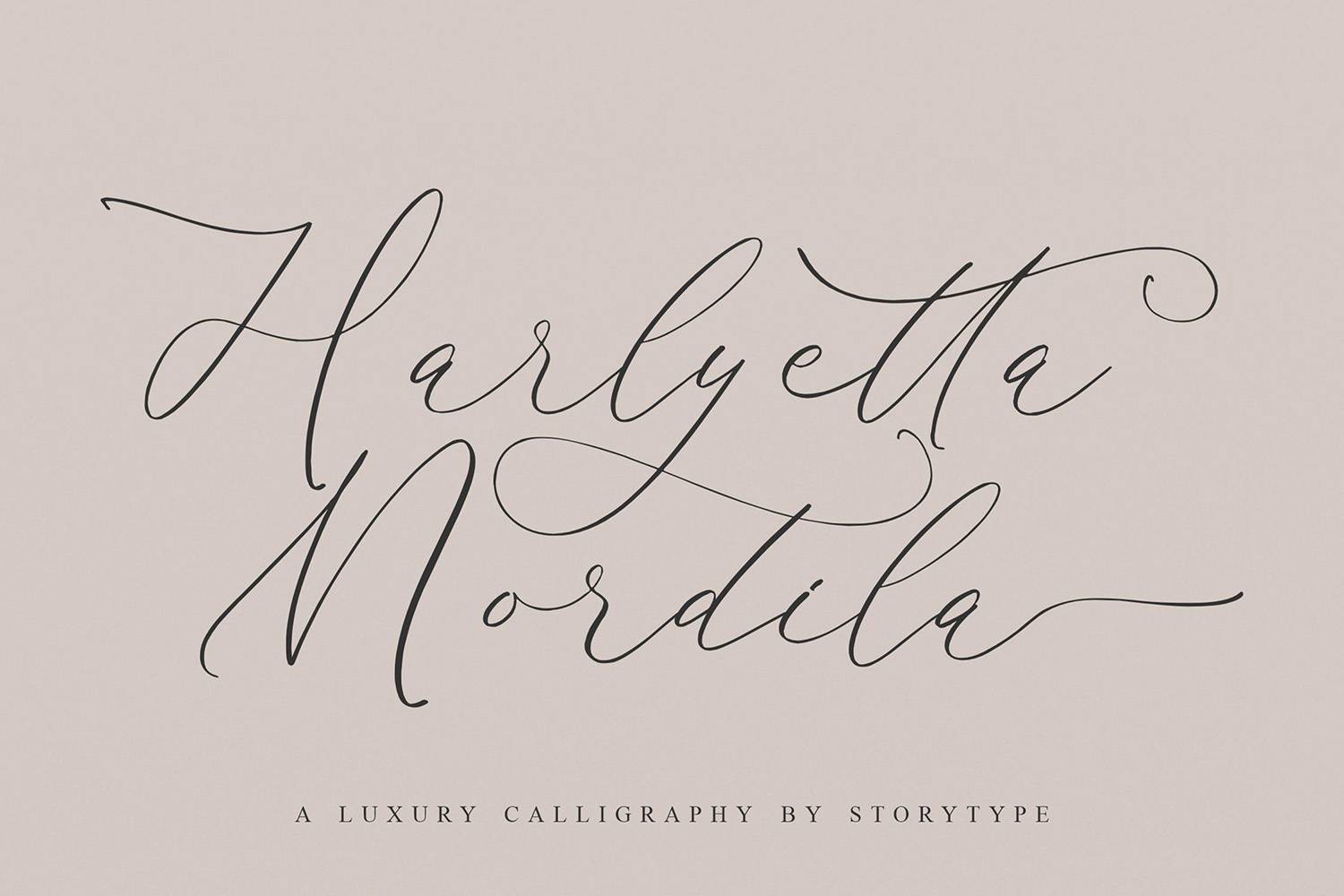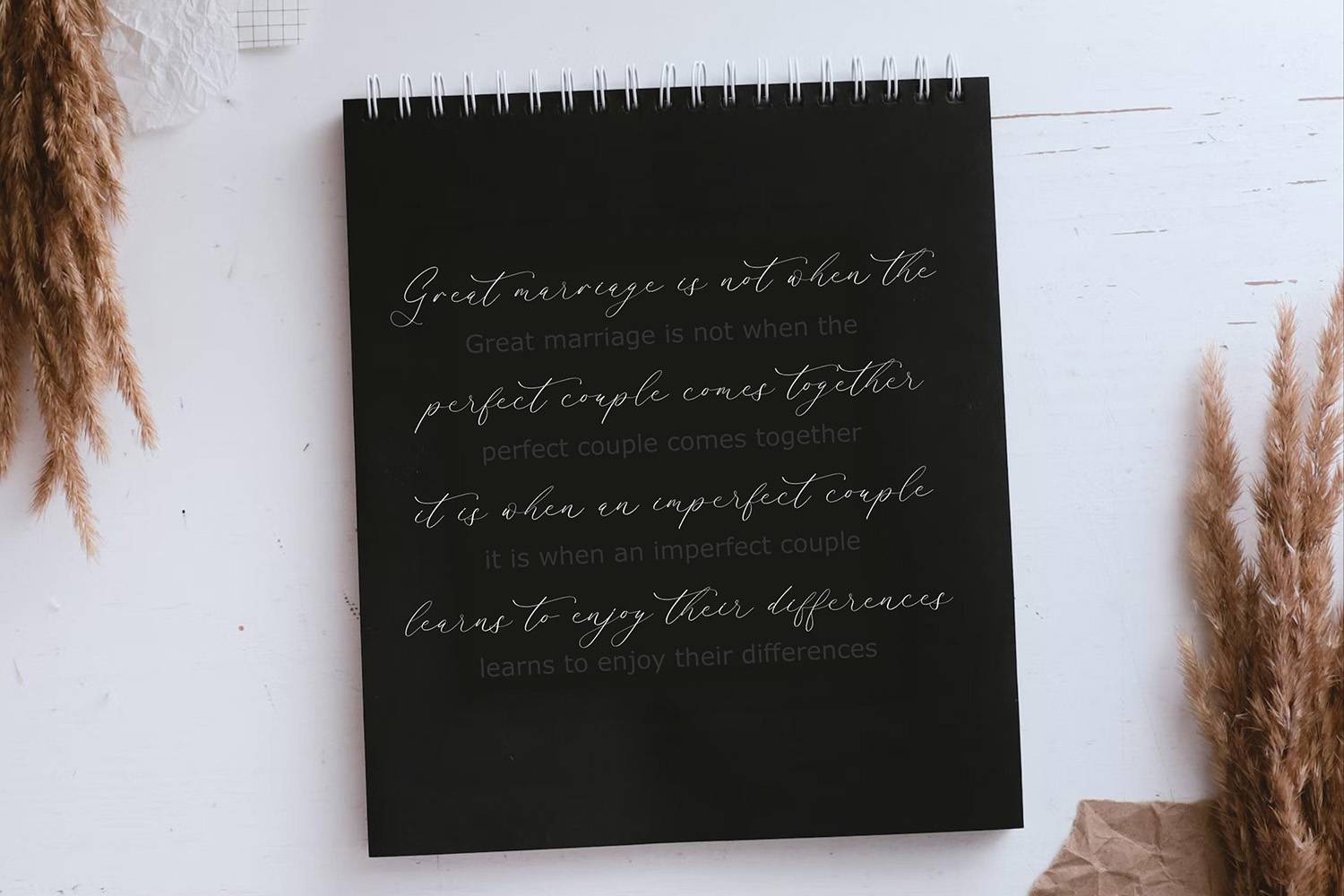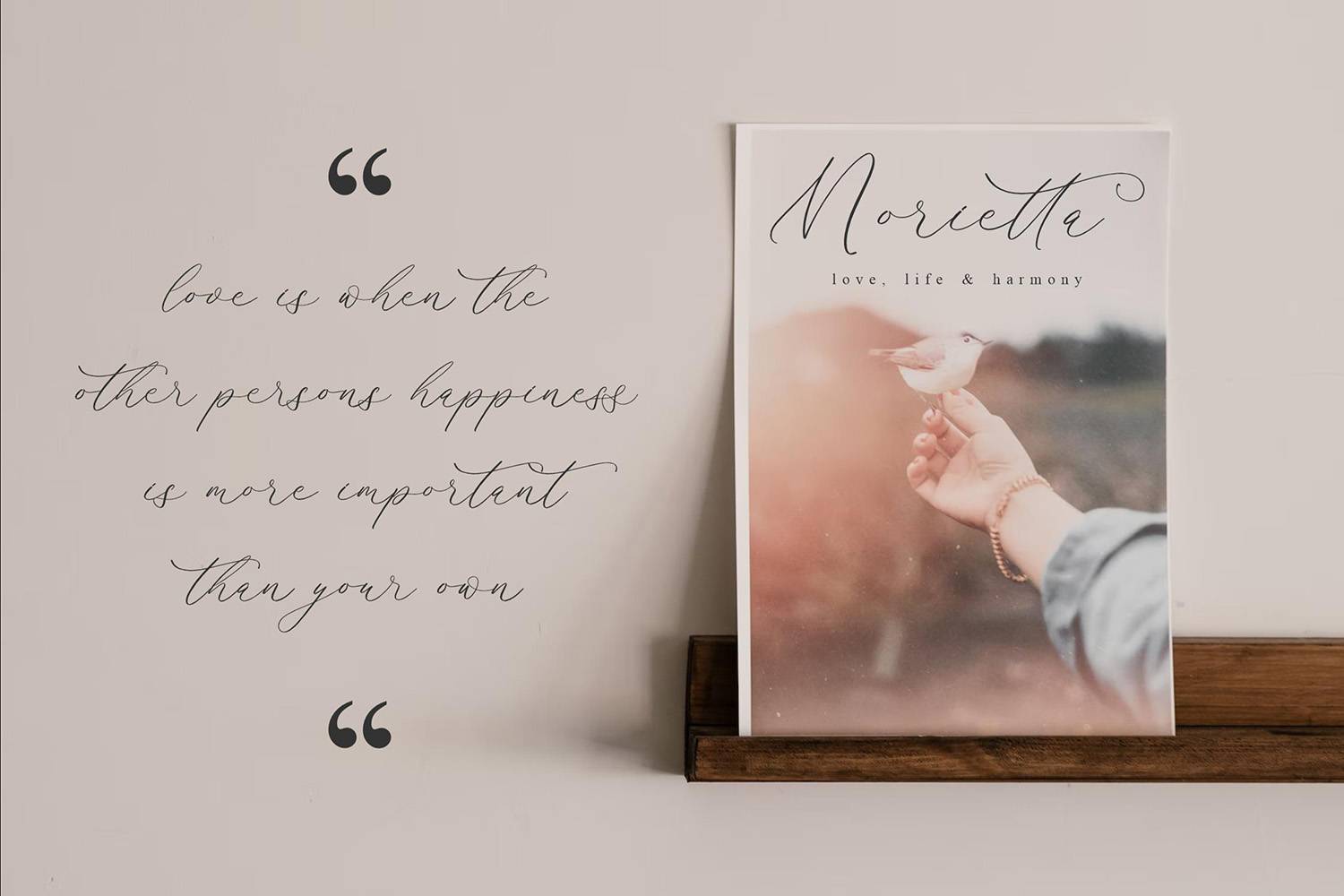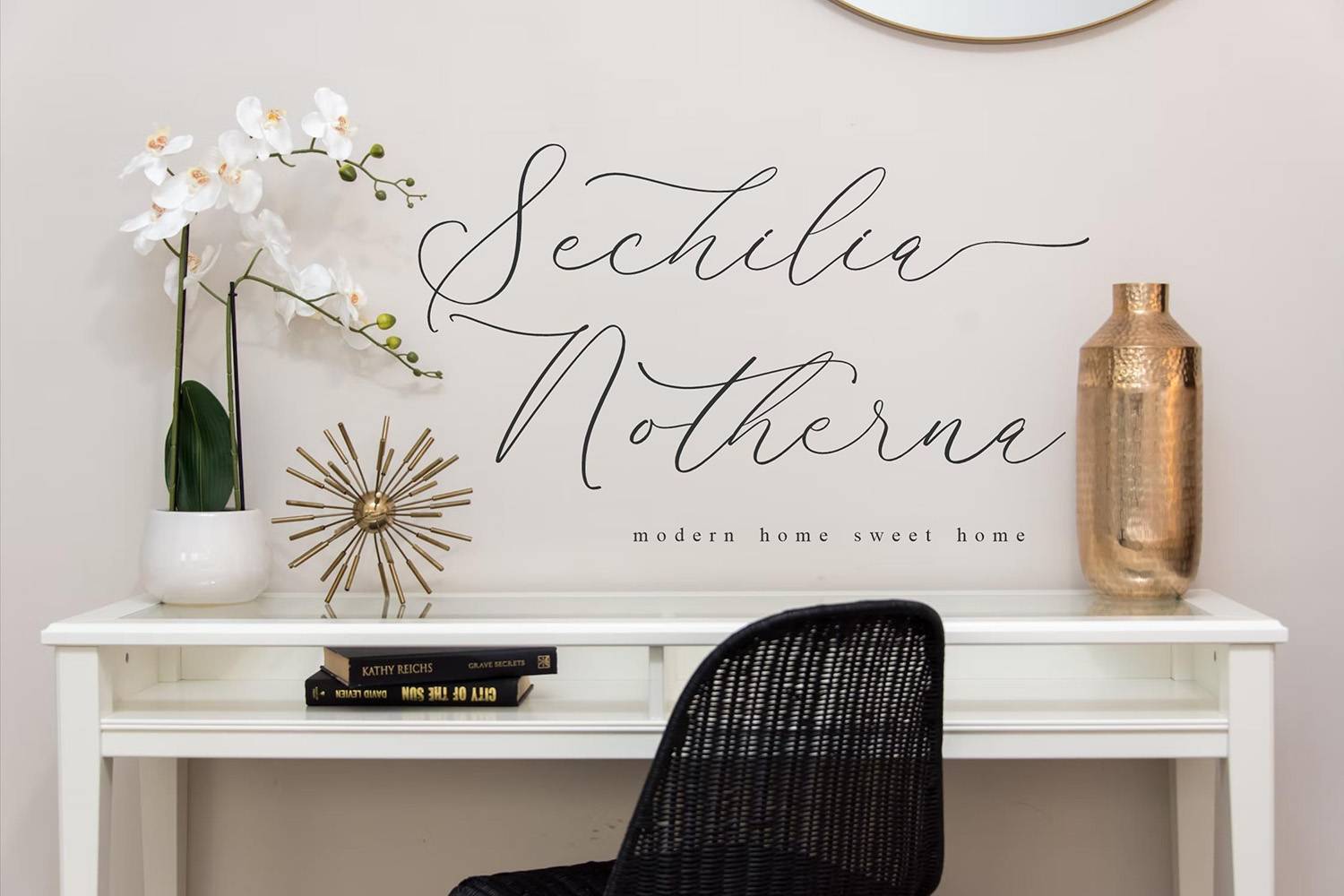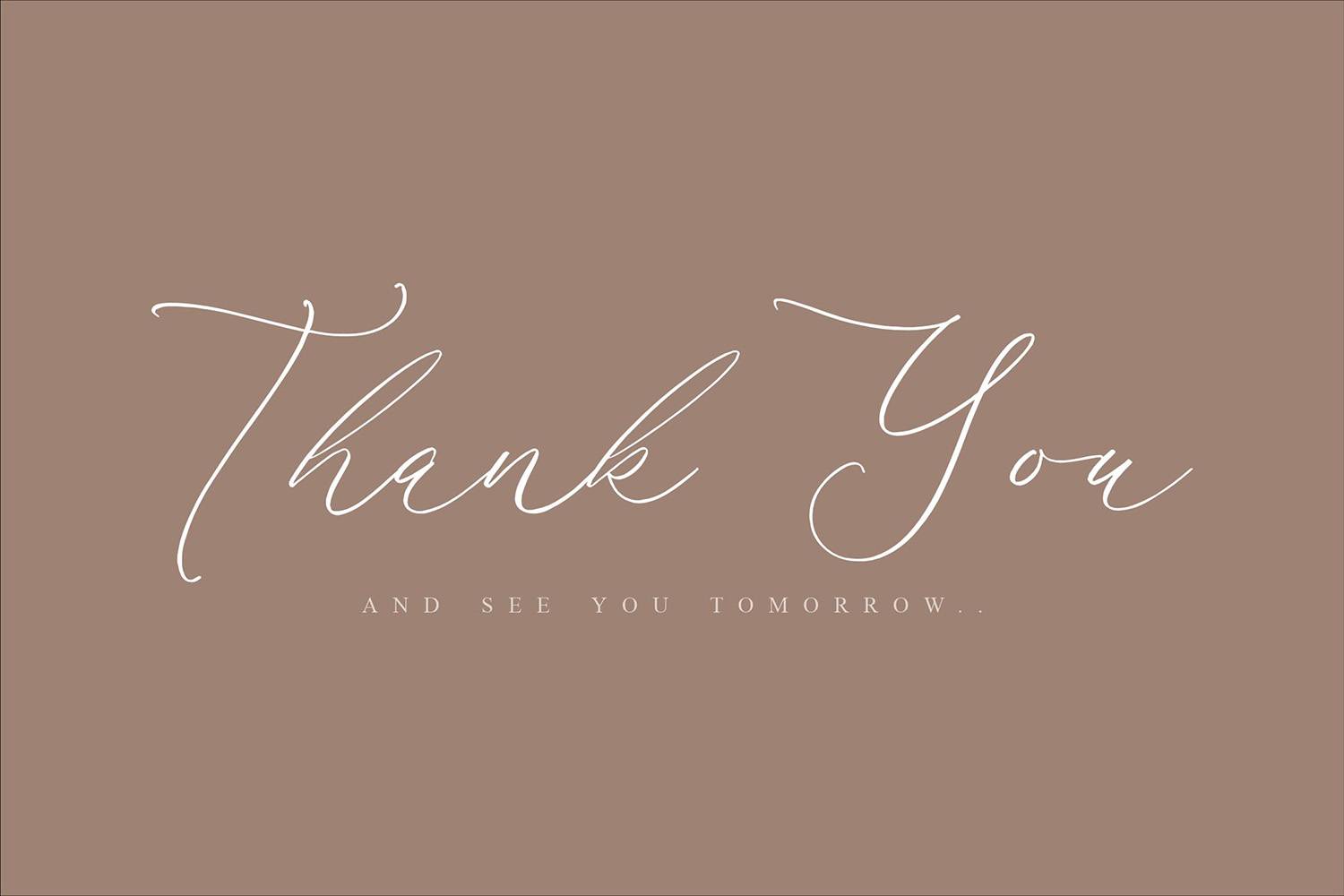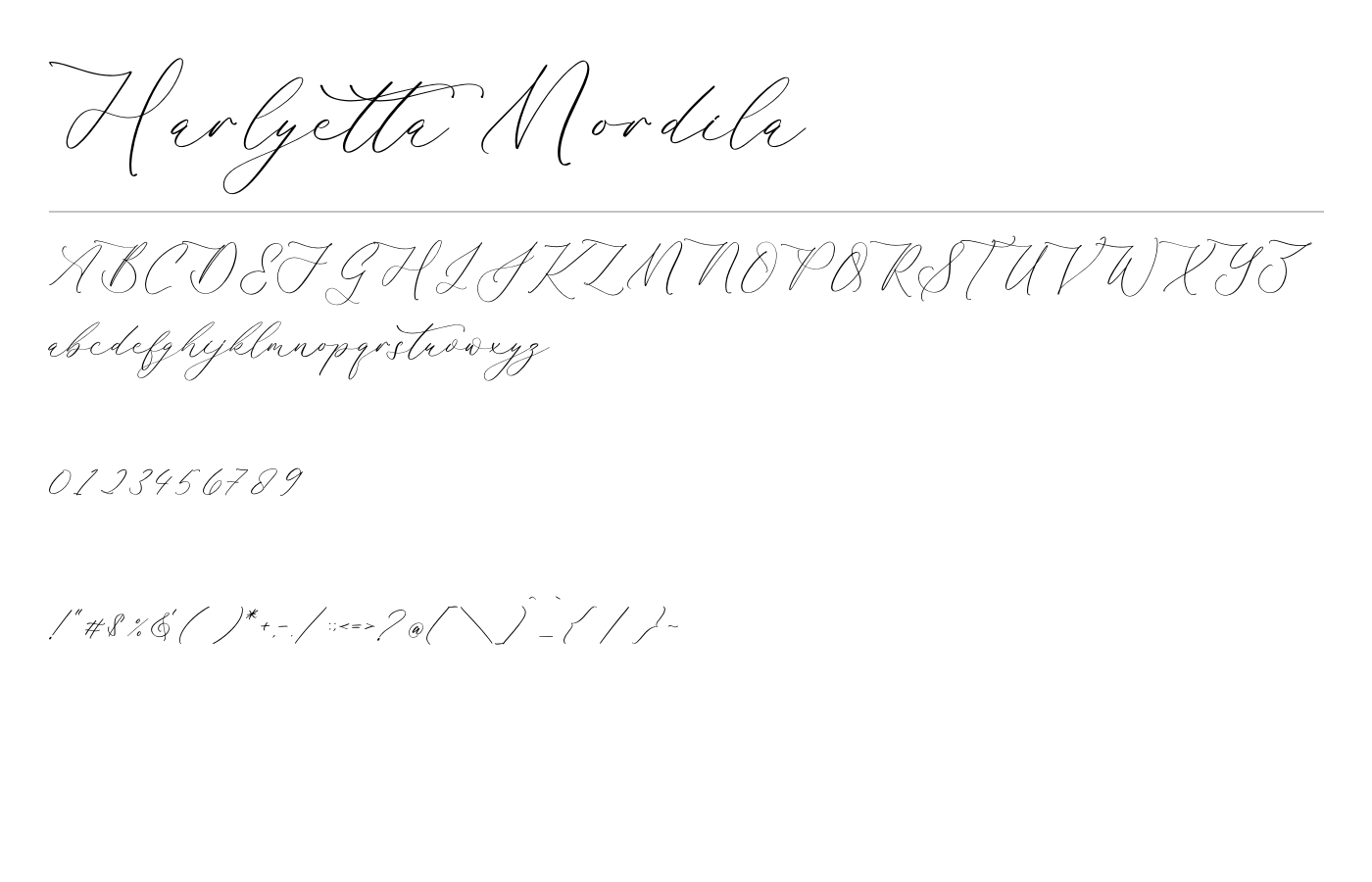
Harlyetta Mordila is an elegant, delicate script font featuring fine, flowing strokes that create a handwritten, calligraphic feel. Its slender weight and graceful curves make it ideal for sophisticated branding, wedding invitations, and luxury designs where a touch of refinement and romance is desired. This font works best in large sizes for headlines or accents, adding a stylish and personal touch to any project.
Harlyetta Mordila Font
About Harlyetta Mordila Font